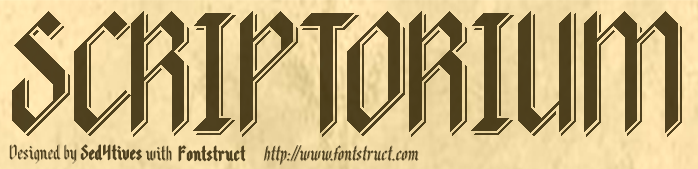
Sadly the gallery preview isn't crisp and doesn't make things look all that attractive, but rather poor instead. And basically little to none of the finer details are really portrayed.
Cool!!
Really well done.
quality stuff
This is delightful.
I really love this one. Great work, @Sed4tives. Inspiring. I am just starting to publish a few attempts at Blackletter, this is a great example.